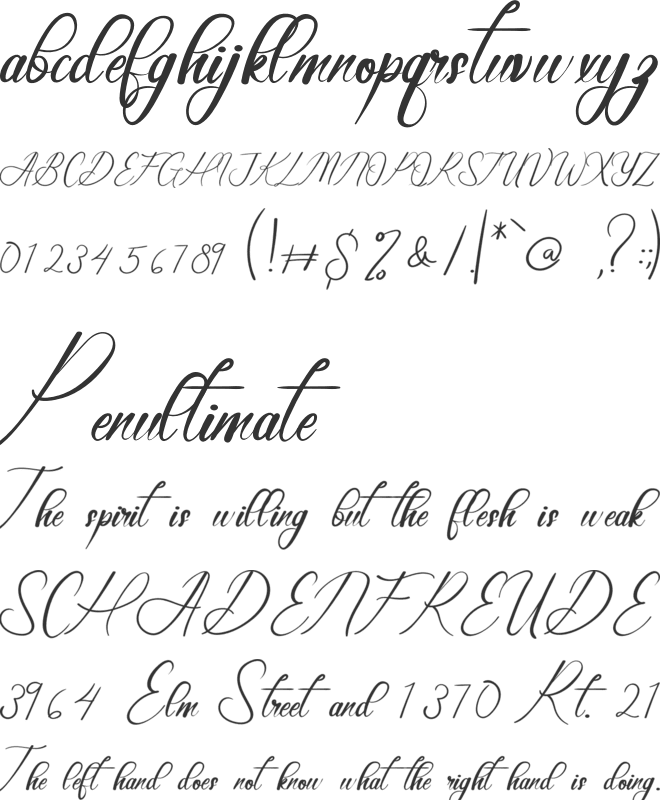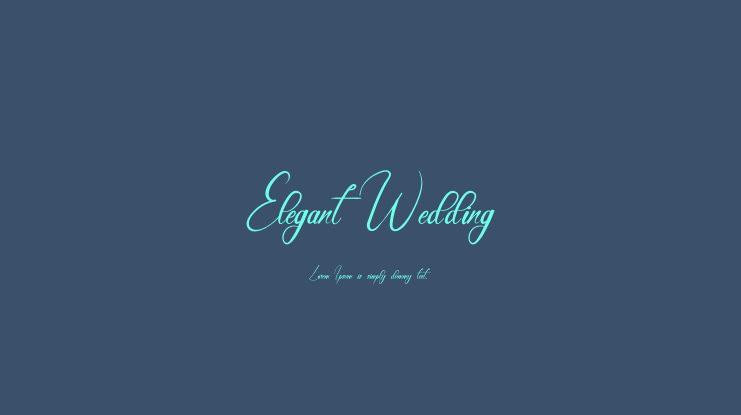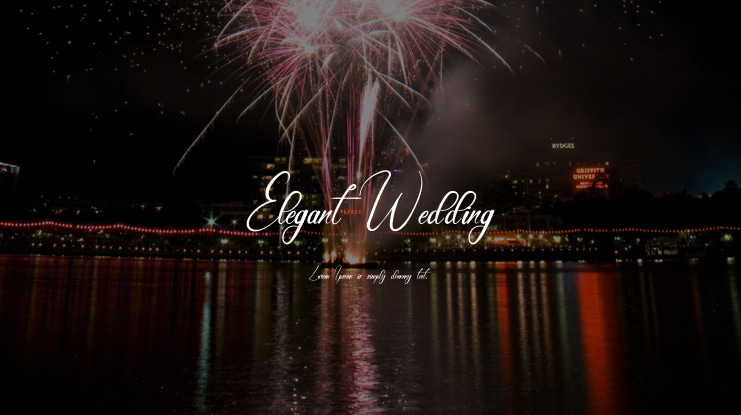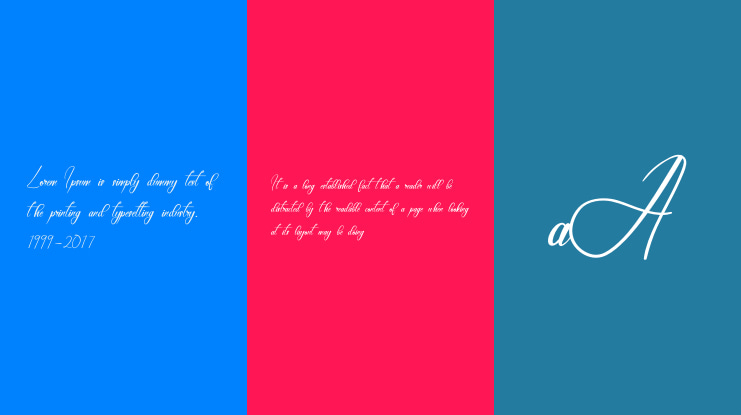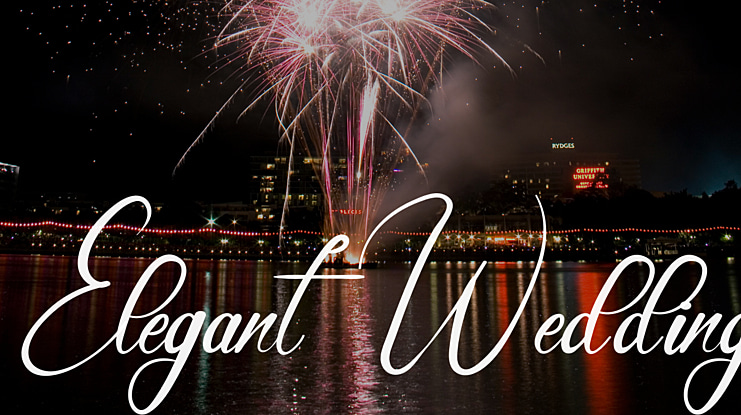
Elegant Wedding Font
Elegant Wedding is a beautiful and smooth script font, that exudes elegance and class. This font was particularly crafted for those who need a beautiful and refreshing look to their designs.